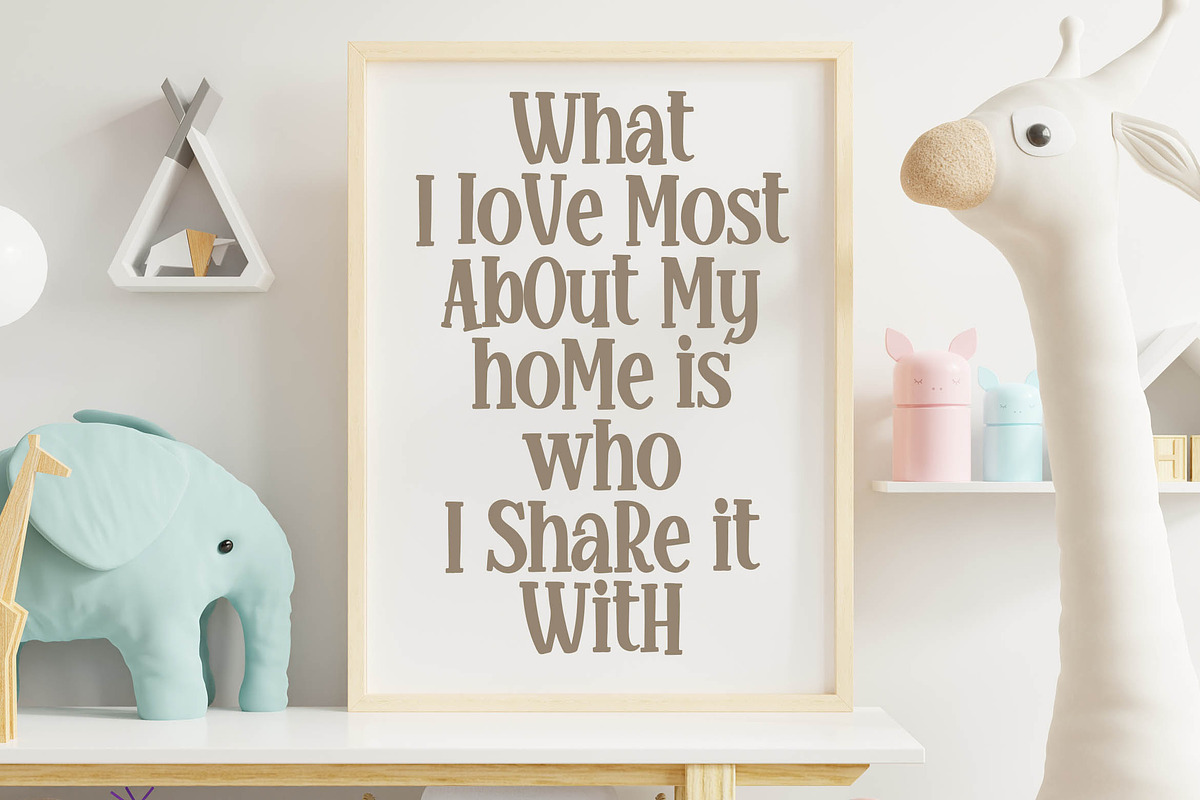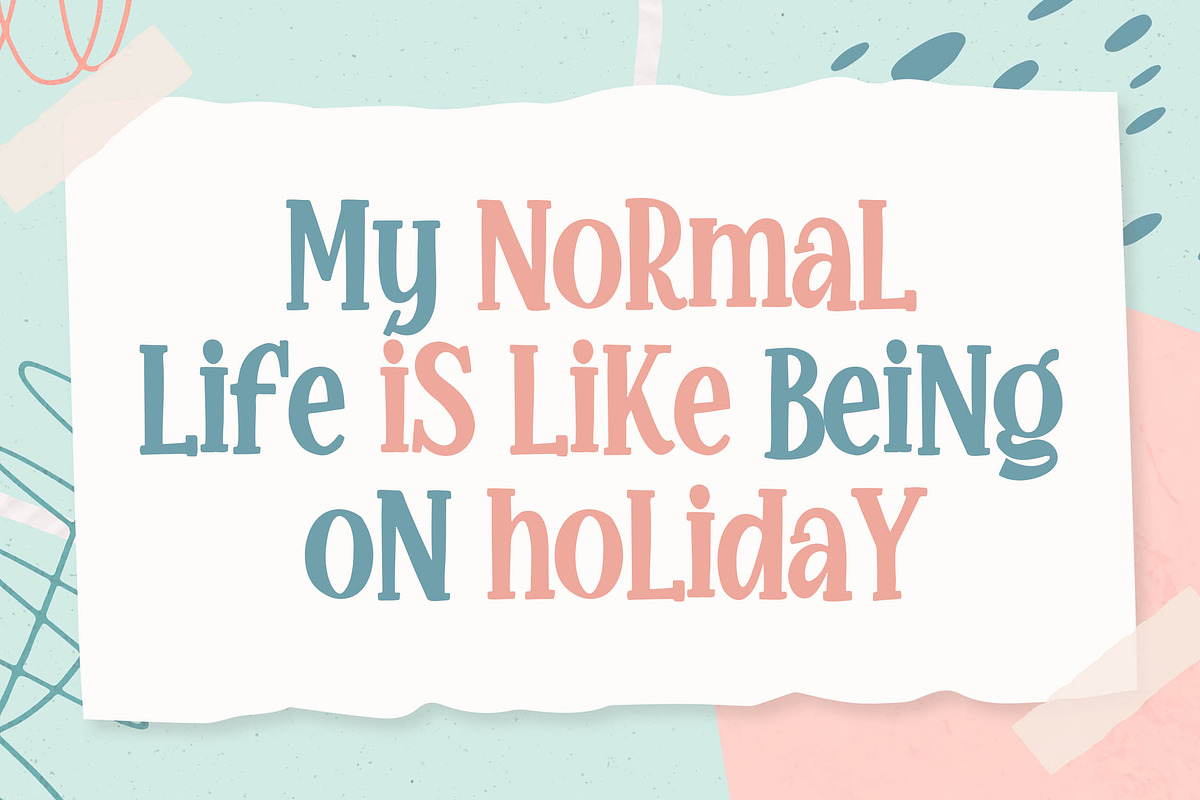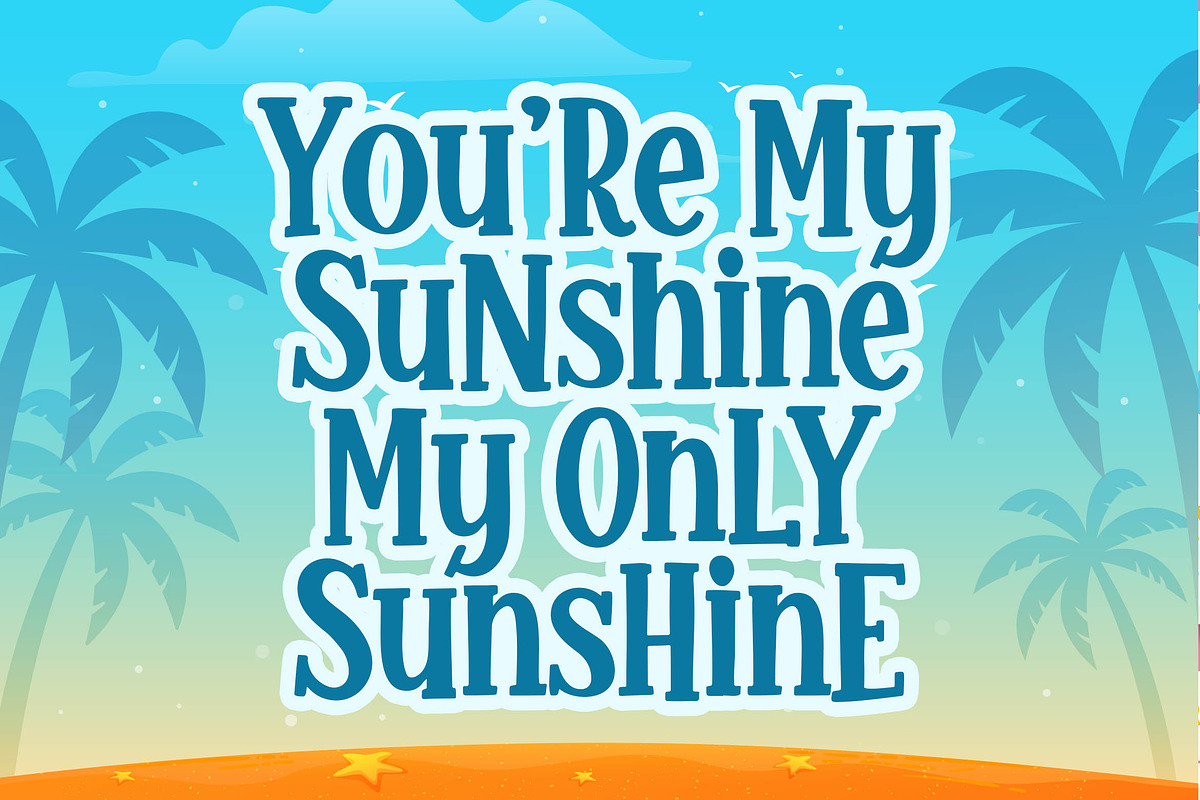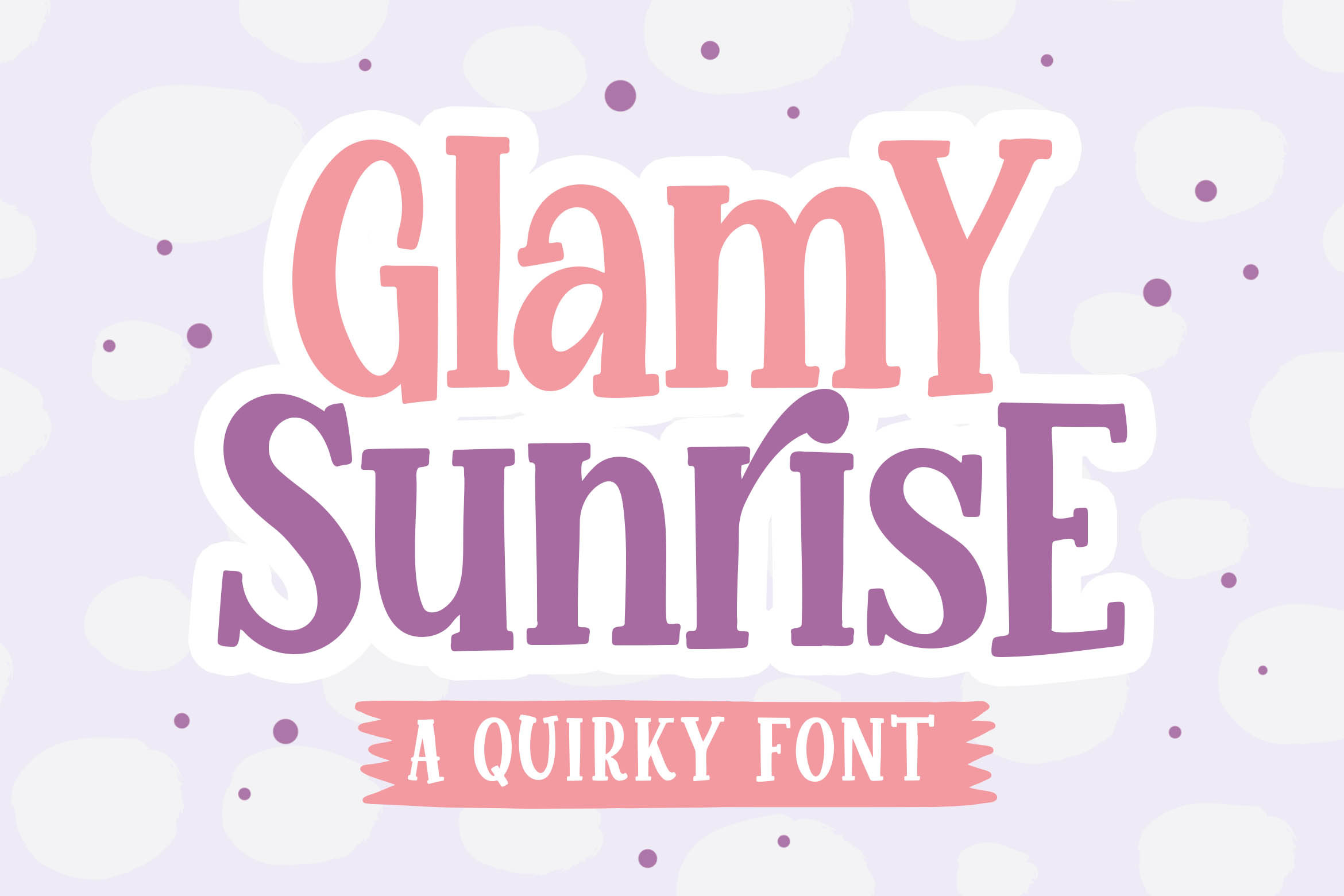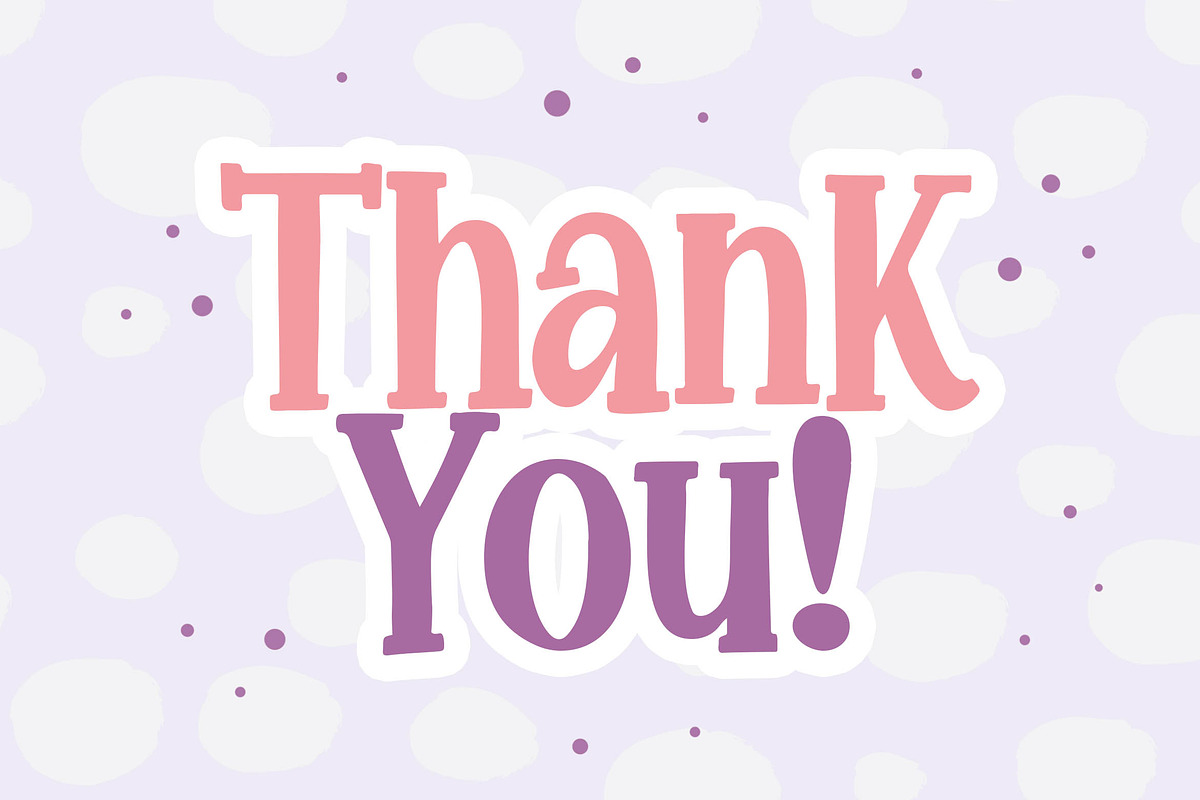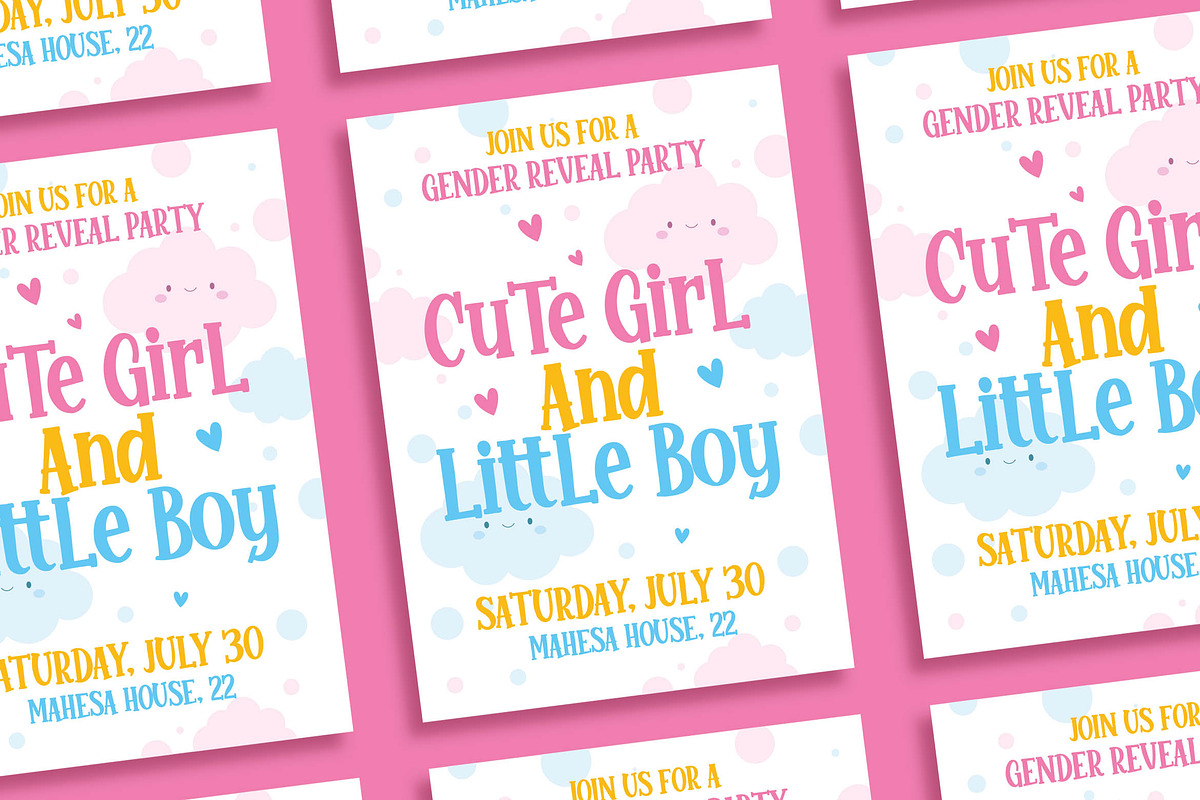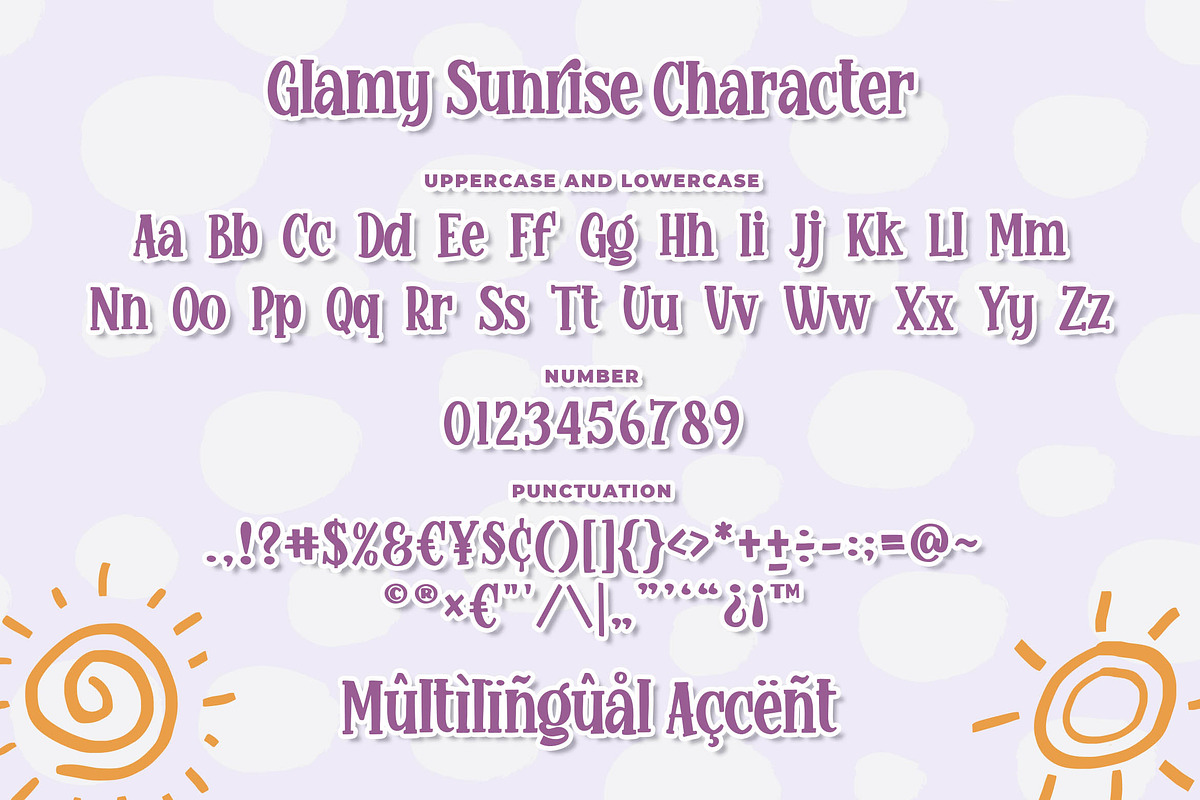
Glamy Sunrise a Quirky Font
Introducing of our new product the name is Glamy Sunrise a Quirky Font, Glamy Sunrise inspired by Playful style with a fun theme very good for poster, packaging, playful theme design etc.